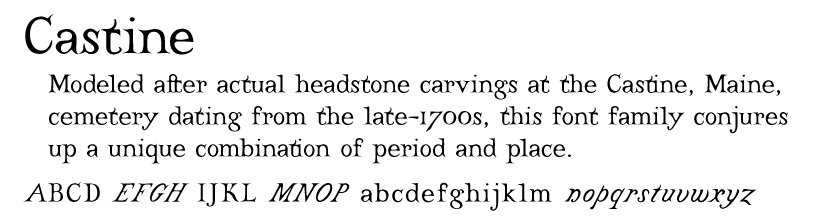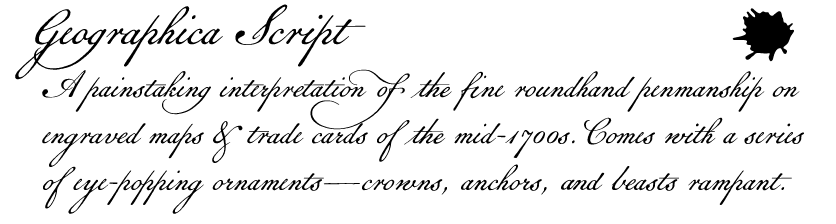
Our Age of Discovery Bundle 12 pre-1800 fonts at a deep discount
In our 25 years of type design, we’ve somehow ended up with an even dozen vintage fonts that replicate pre-1800 source materials—six historical scripts, four old map fonts, and a pair of antique texts. Since history continues to inspire, even in the digital era, it occurred to me that some might appreciate a discounted bundle of these age-old typefaces.
“The Age of Discovery” generally refers to the 400 years between the 14th and 19th centuries, as Europeans set out in great ships to explore the coastlines of the continents of the world. Their expeditions begat the mixed bag of mercantilism, colonialism, and globalization—but also cartography. In fact, old maps of the era influenced four fonts in this collection: Antiquarian, Antiquarian Scribe, Geographica Hand, and Terra Ignota. And because records were kept by hand back then, the bundle also includes Abigail Adams, American Scribe, Geographica Script, Military Scribe, Old Man Eloquent, and Remsen Script. Finally, from Colonial America, came two of our vintage text families, Broadsheet and Castine.
All 12 typefaces (15 fonts total) are chock-full of OpenType features and have full Latin support. (The old map fonts also feature numerous cartographic ornaments.) Now you can have the full bundle for just